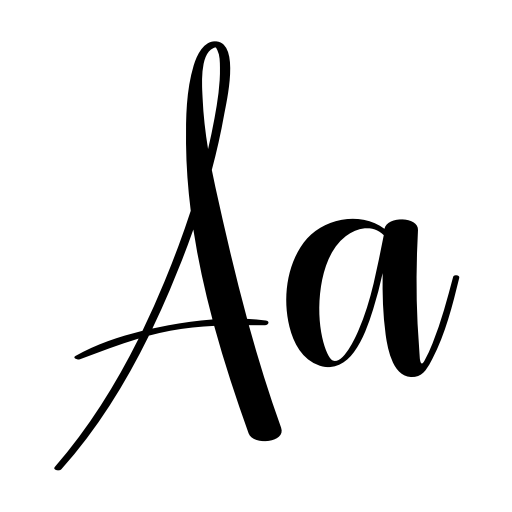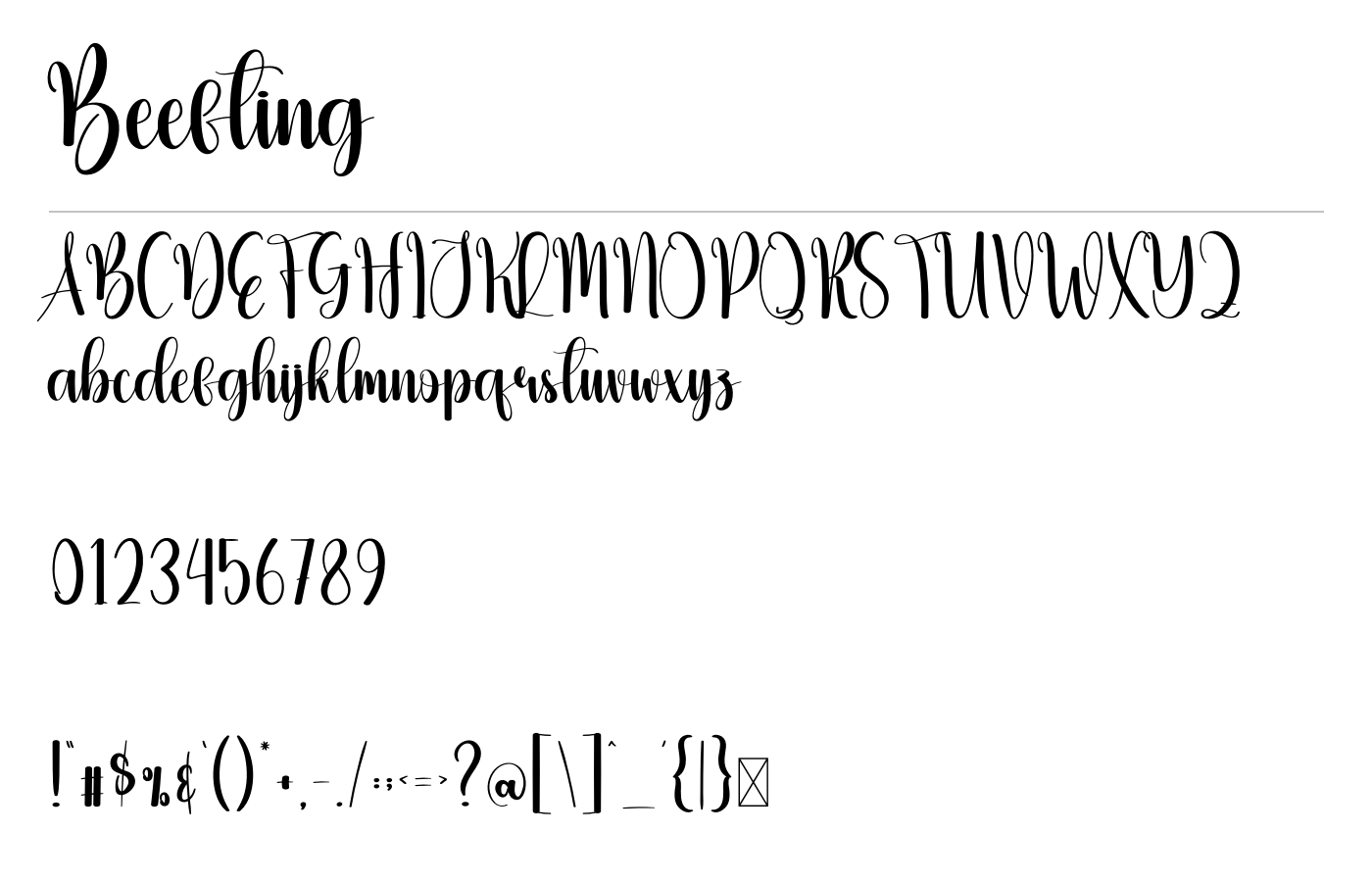
Beefting is a stylish script font with elegant, flowing letterforms and a playful yet sophisticated charm. Its slender strokes and high contrast create a delicate, handwritten feel that works beautifully for branding, invitations, and creative headlines where a touch of personality and grace is desired. This font’s unique curves and flourishes make it ideal for designs looking to convey warmth and elegance with a modern twist.
Beefting Font
About Beefting Font